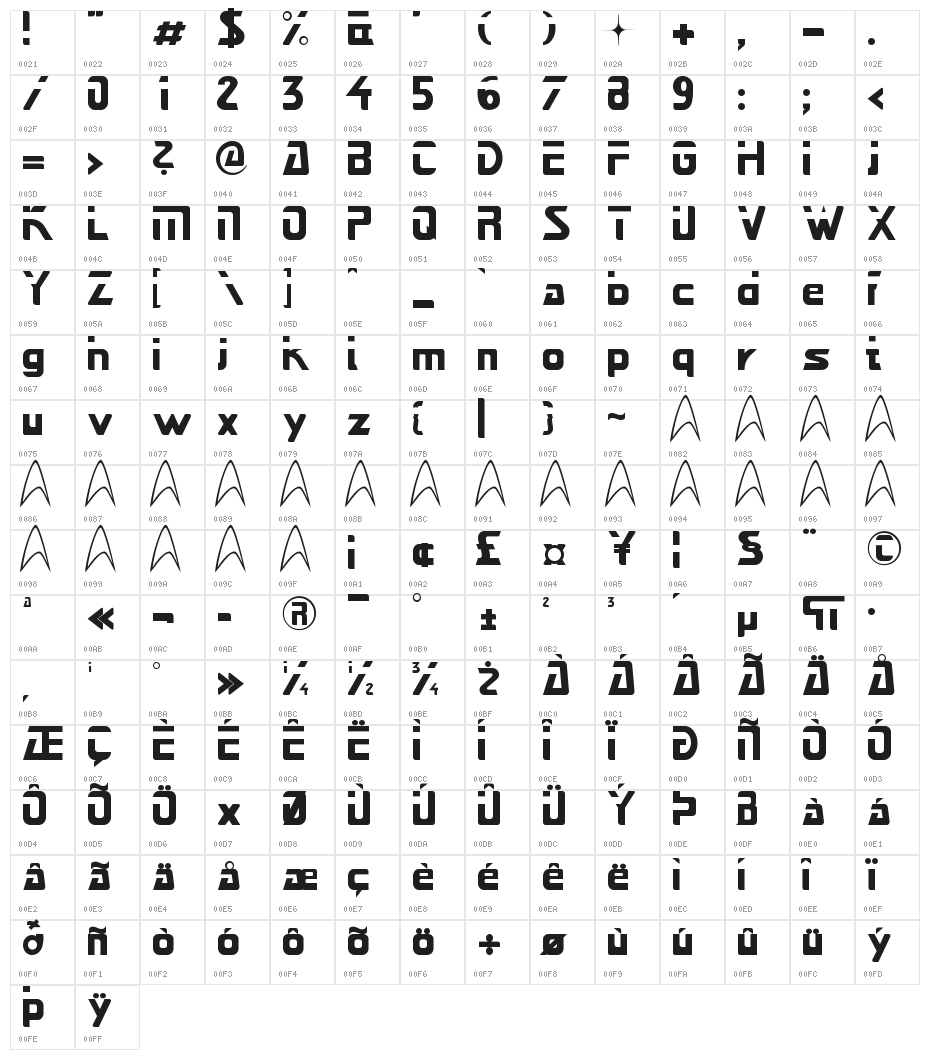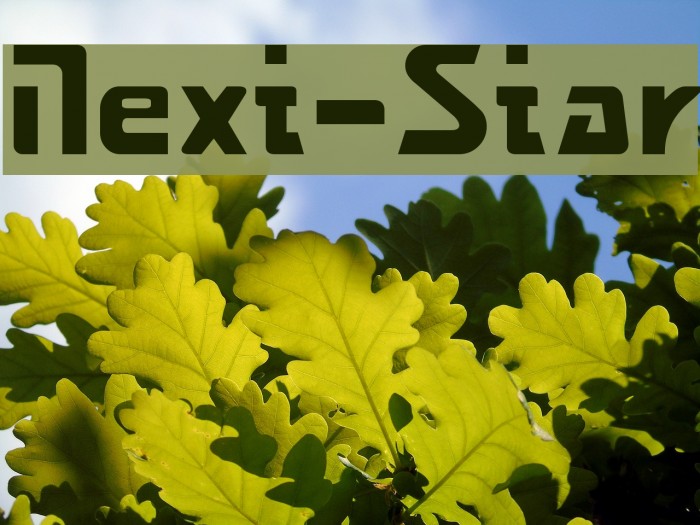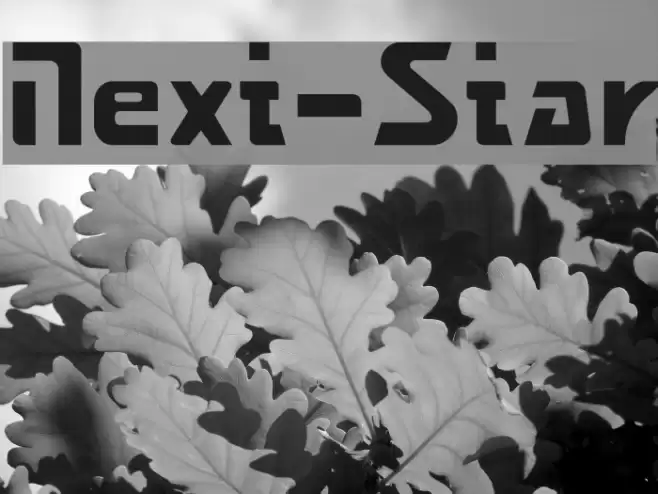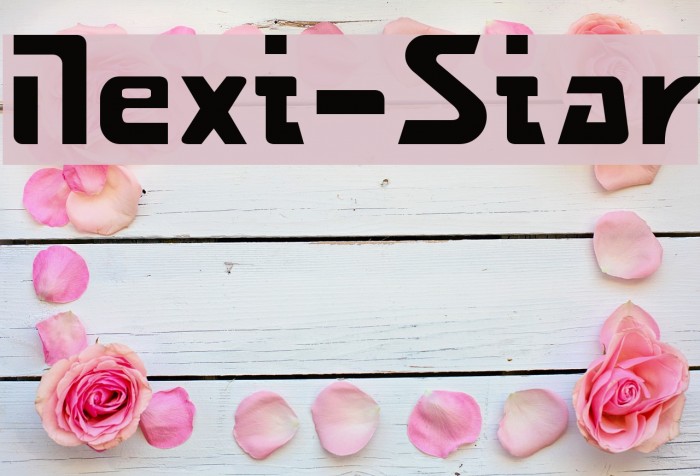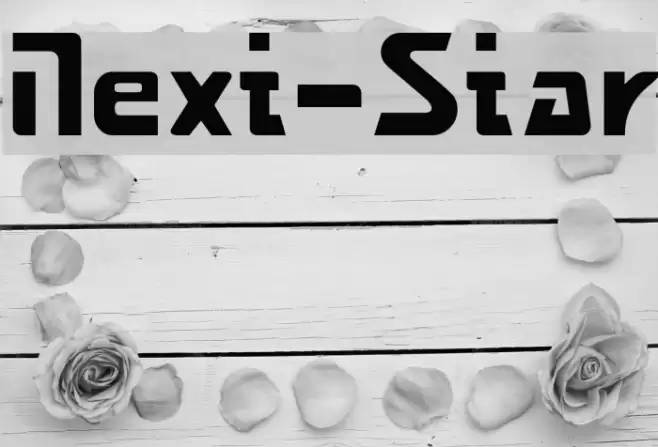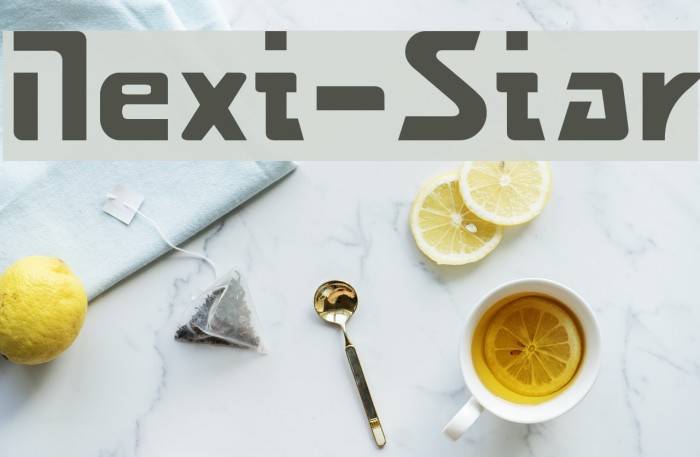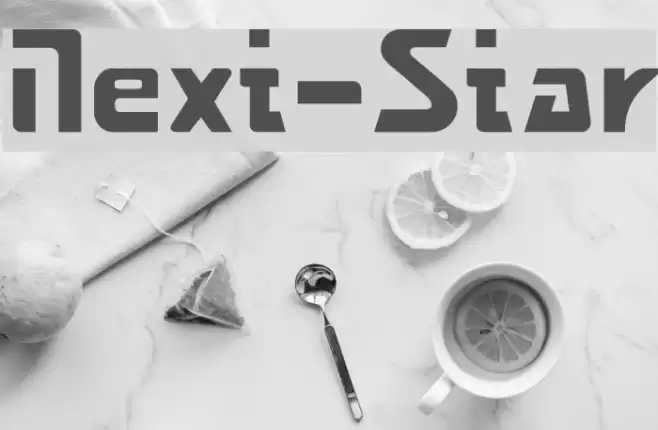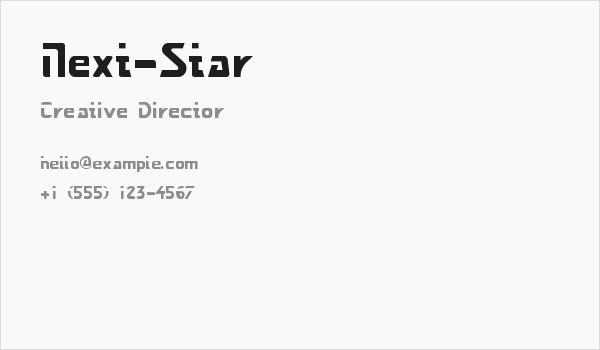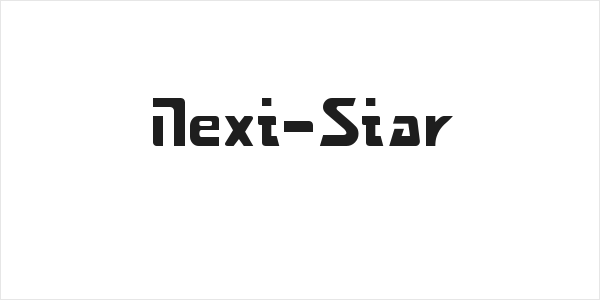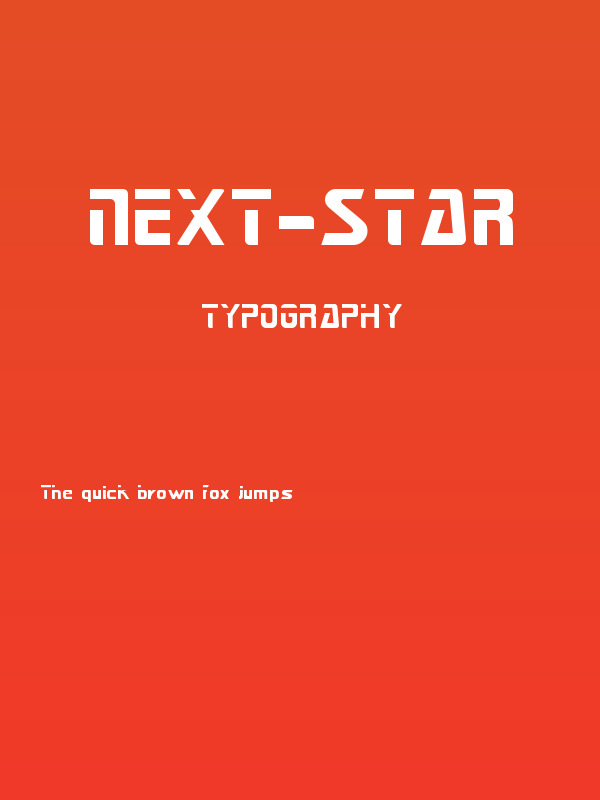
Next-Star Font
Next-Star Description
This font features a bold, futuristic design with geometric shapes and sharp angles. The uppercase letters are particularly striking, with a blocky, almost stencil-like appearance that conveys a sense of strength and modernity. The lowercase letters maintain a similar aesthetic, though they are slightly more rounded, providing a nice contrast to the angular uppercase. Numbers and special characters are consistent with the overall style, ensuring a cohesive look across all text. The font's unique style makes it stand out, making it suitable for projects that require a modern and edgy feel.
| Proposed Projects | Ideal for technology branding, sci-fi posters, video game titles, and modern advertising. |